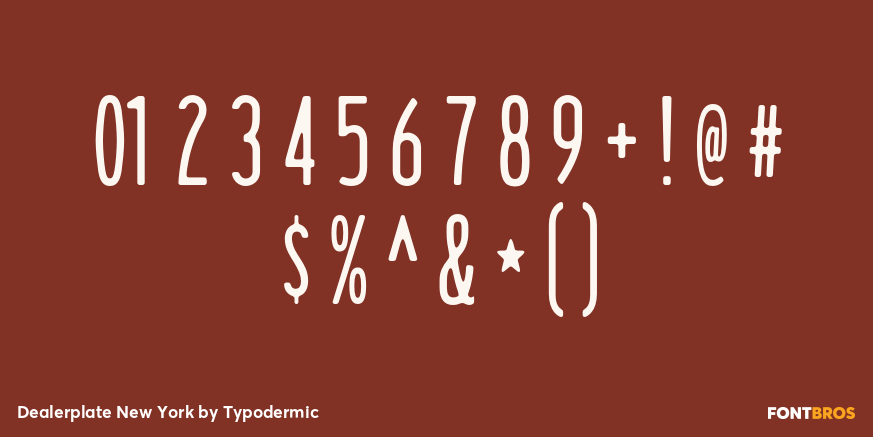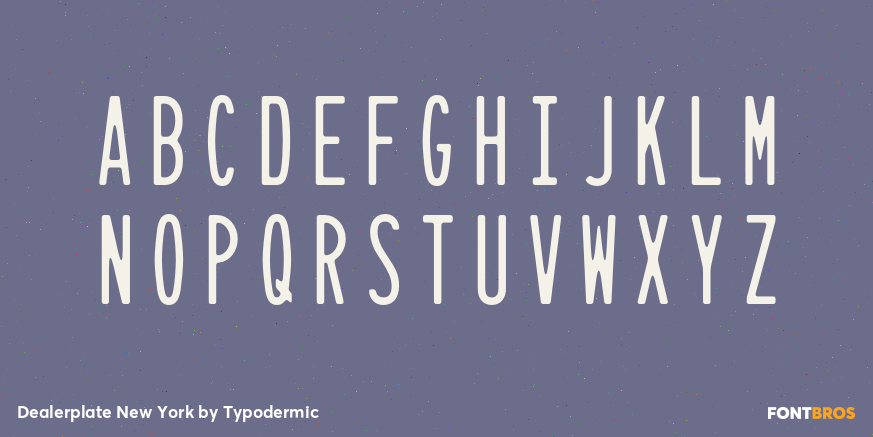
Dealerplate New York
Dealerplate New York converts New York-inspired license-plate lettering into a complete display alphabet. It supports fictional registrations and related typography for productions that need a convincing New York vehicle cue, whether the setting is a dense city street, an upstate highway, or a digital reconstruction.
Use it for New York police procedurals, crime and legal dramas, road films, driving games, virtual-production traffic, evidence photographs, impound graphics, parking permits, and fictional DMV documents. The full alphabet also lets designers carry the plate's character into case-file labels, garage signage, vehicle-selection screens, and background props, making the setting feel consistent across close-ups and wide shots.